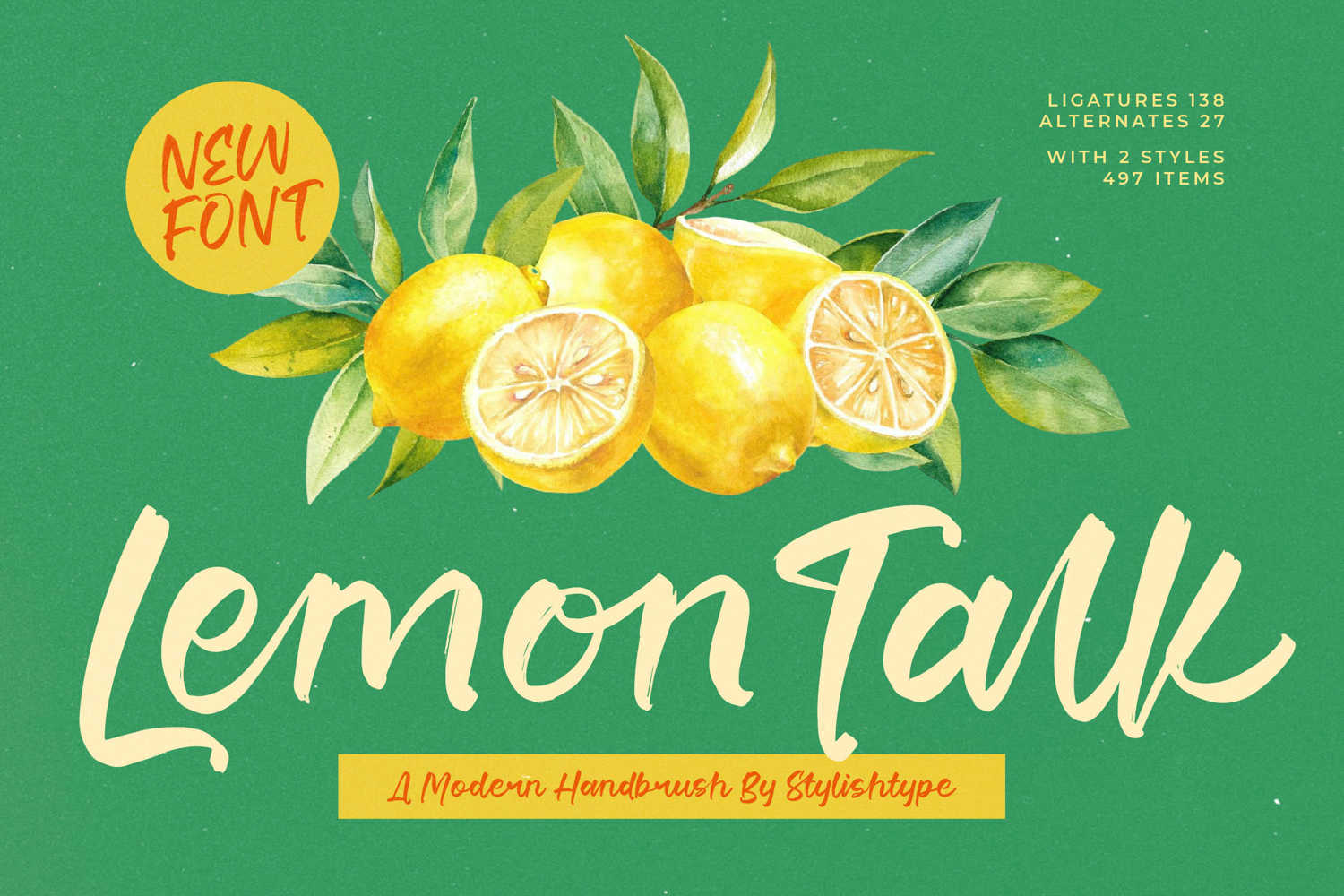
Lemon Talk - Modern Handbrush Font
Unleash the vibrancy of authentic hand-lettering in your next project. Font Lemon Talk - Modern Handbrush Font Script captures the energetic flow and natural texture of a genuine brush stroke, delivering an aesthetic that is both fresh and high-impact. Its slightly irregular baseline and bold, dynamic weight give designs an immediate sense of personality and handmade quality, making it instantly recognizable and highly memorable. This modern script is engineered for superior readability, even while maintaining its raw, expressive character.